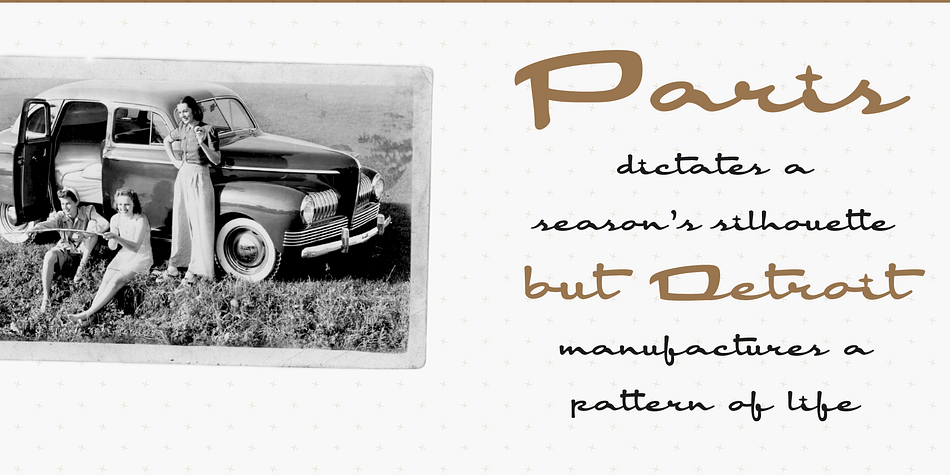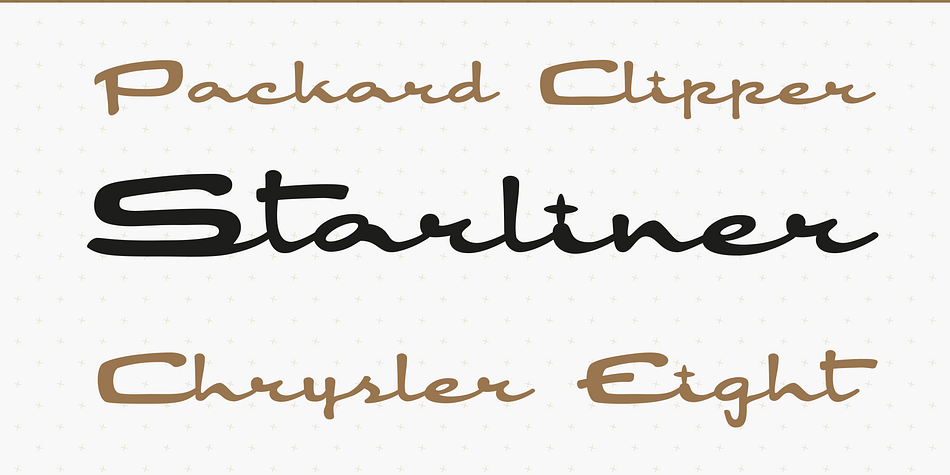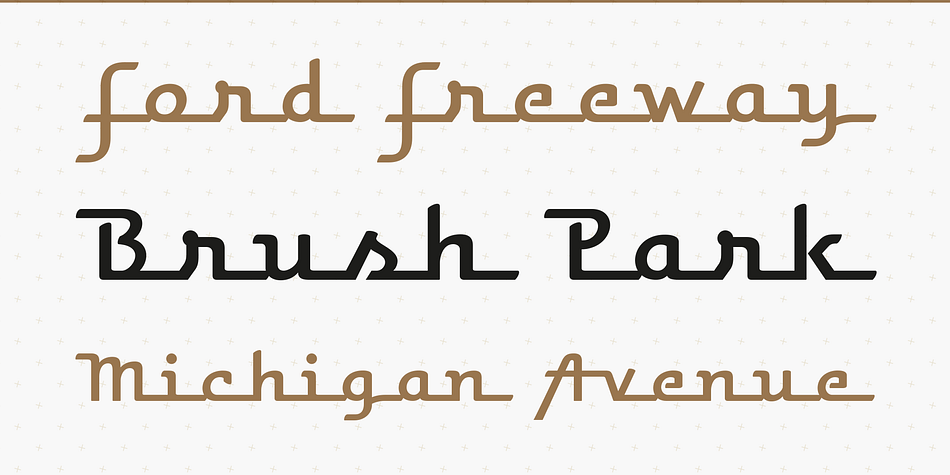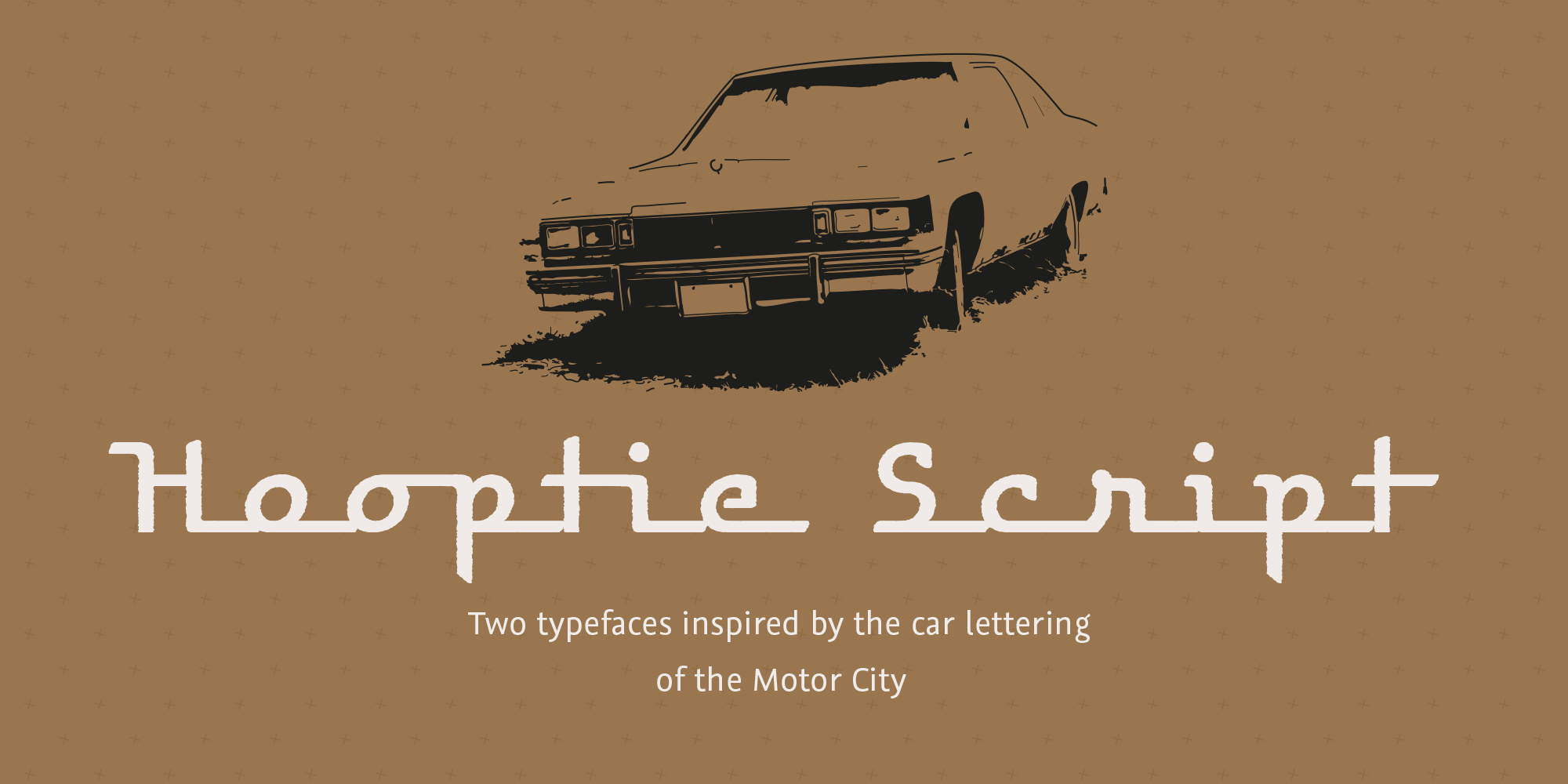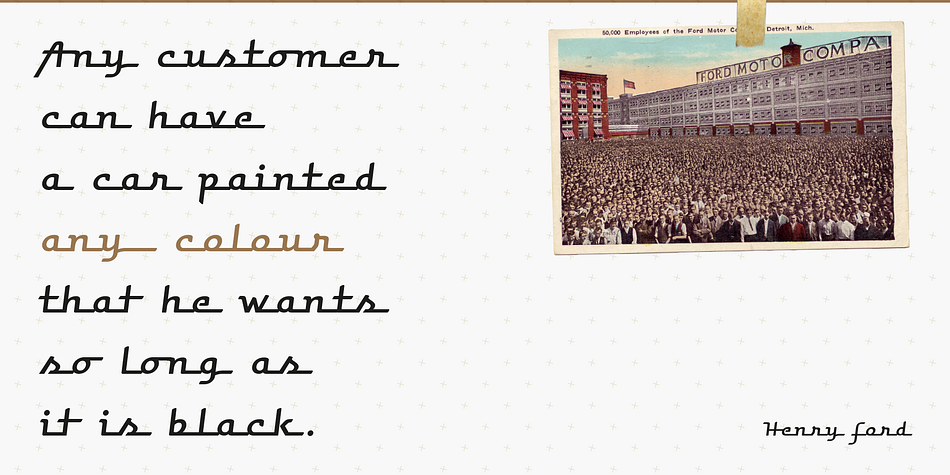
Designed by Ralf Herrmann, Hooptie Script is a retro and script font family. This typeface has five styles and was published by FDI Type Foundry.
Two typefaces inspired by the car lettering of the Motor City.
In contrast to other car script fonts, the Hooptie Script fonts make full use of modern OpenType technology. Just turn on contextual alternates and ligatures and watch how each letter pair always connects perfectly.